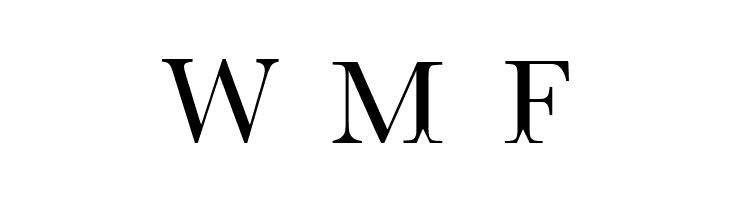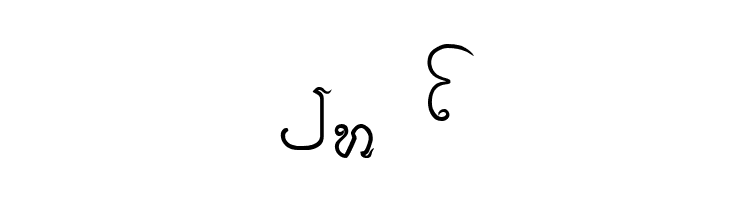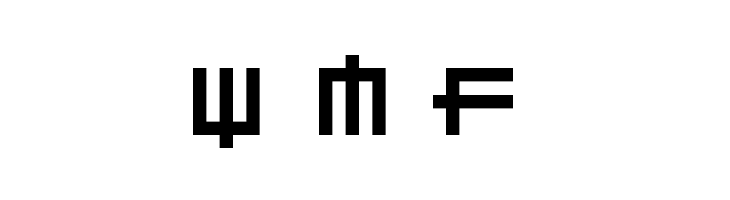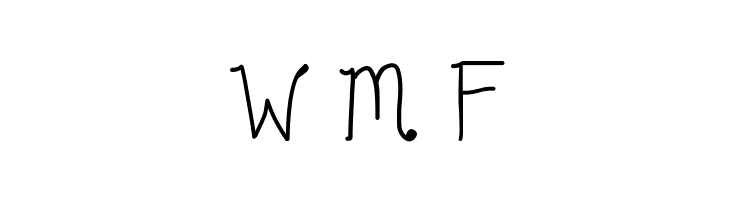
A whimsical, elegant cursive font with intricate loops and swirls.
A classic serif typeface with medium contrast and elegant serifs.
A bold serif font with strong vertical strokes and classic elegance.
A bold, geometric font with a strong, industrial aesthetic.
A bold, geometric font with strong, blocky characters.
A bold, italicized font with angular, dynamic characters.
A bold, italic font with a dynamic, angular style.